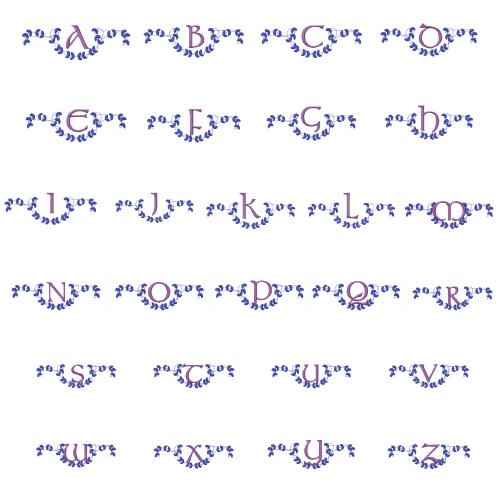
Embroidery Patterns is happy to present Leaf Scroll Embroidery Font - Decorative Script with Floral Motifs - PES, DST & 9 formats machine embroidery font which has Decorative script embroidery font with floral motifs, adding a charming touch to garments and accessories. Ideal for stitching on cushions and available in PES, DST, and other formats. included. If you would like to view more embroidery fonts and alphabets please search our embroidery fonts page.
Leaf Scroll Embroidery Font - Decorative Script with Floral Motifs - PES, DST & 9 formats